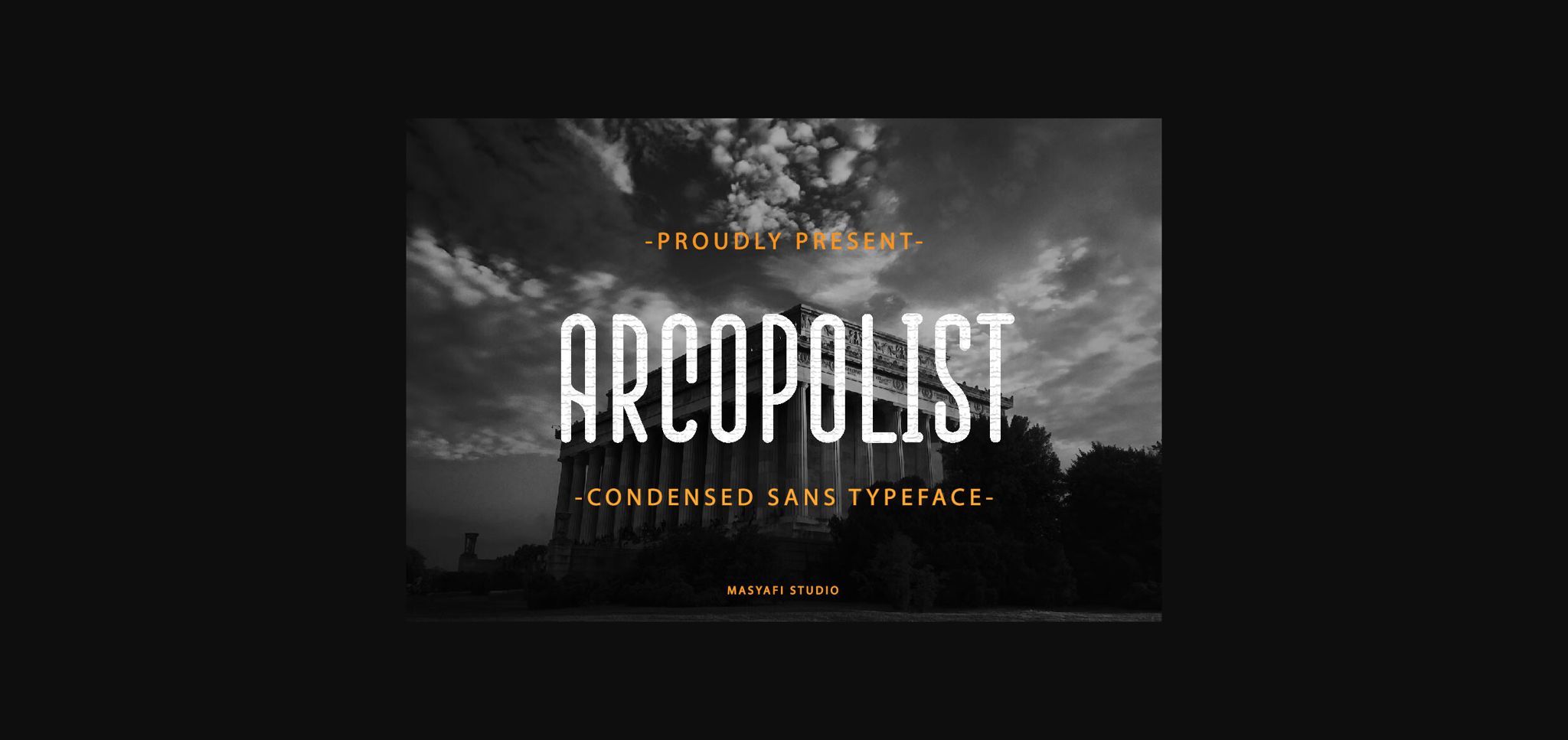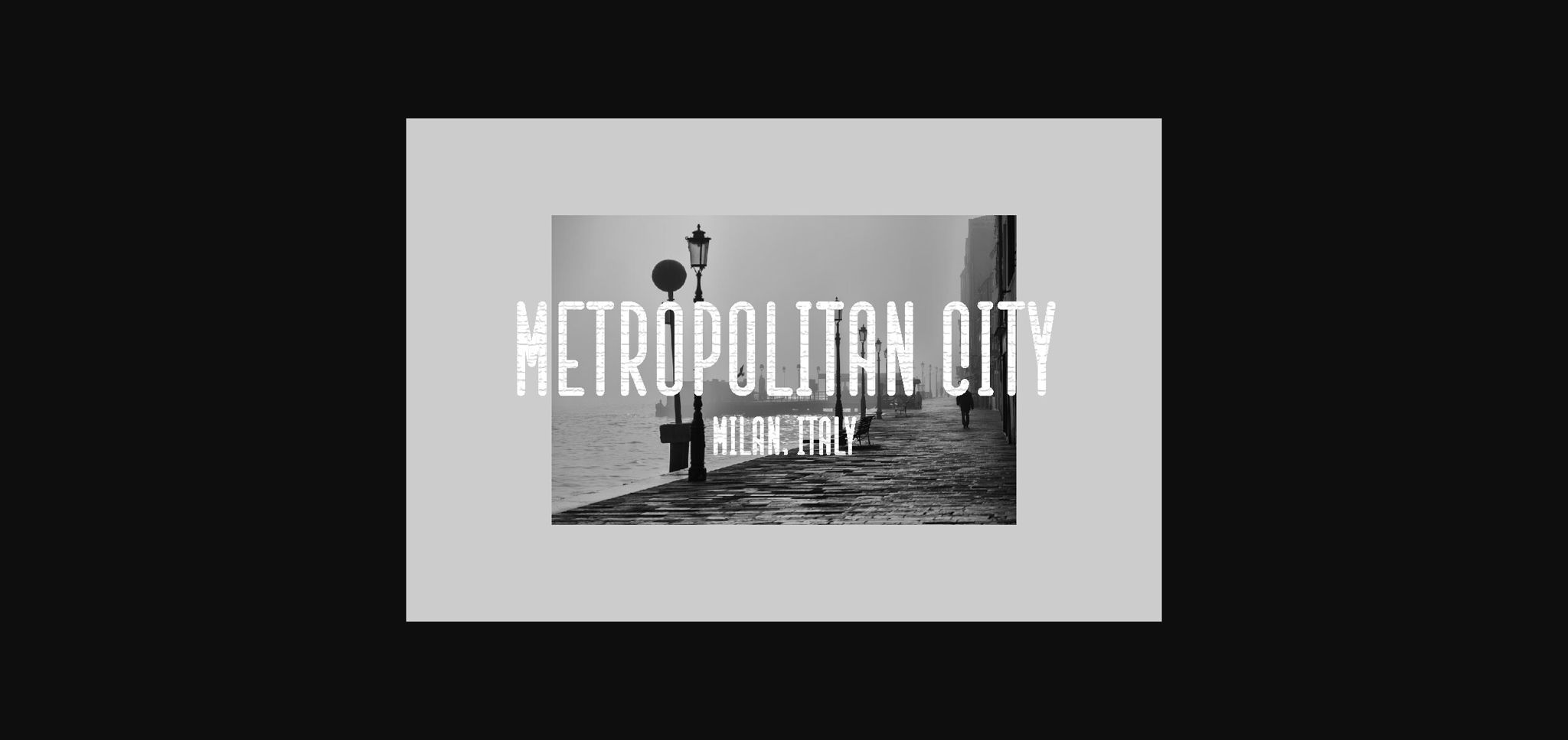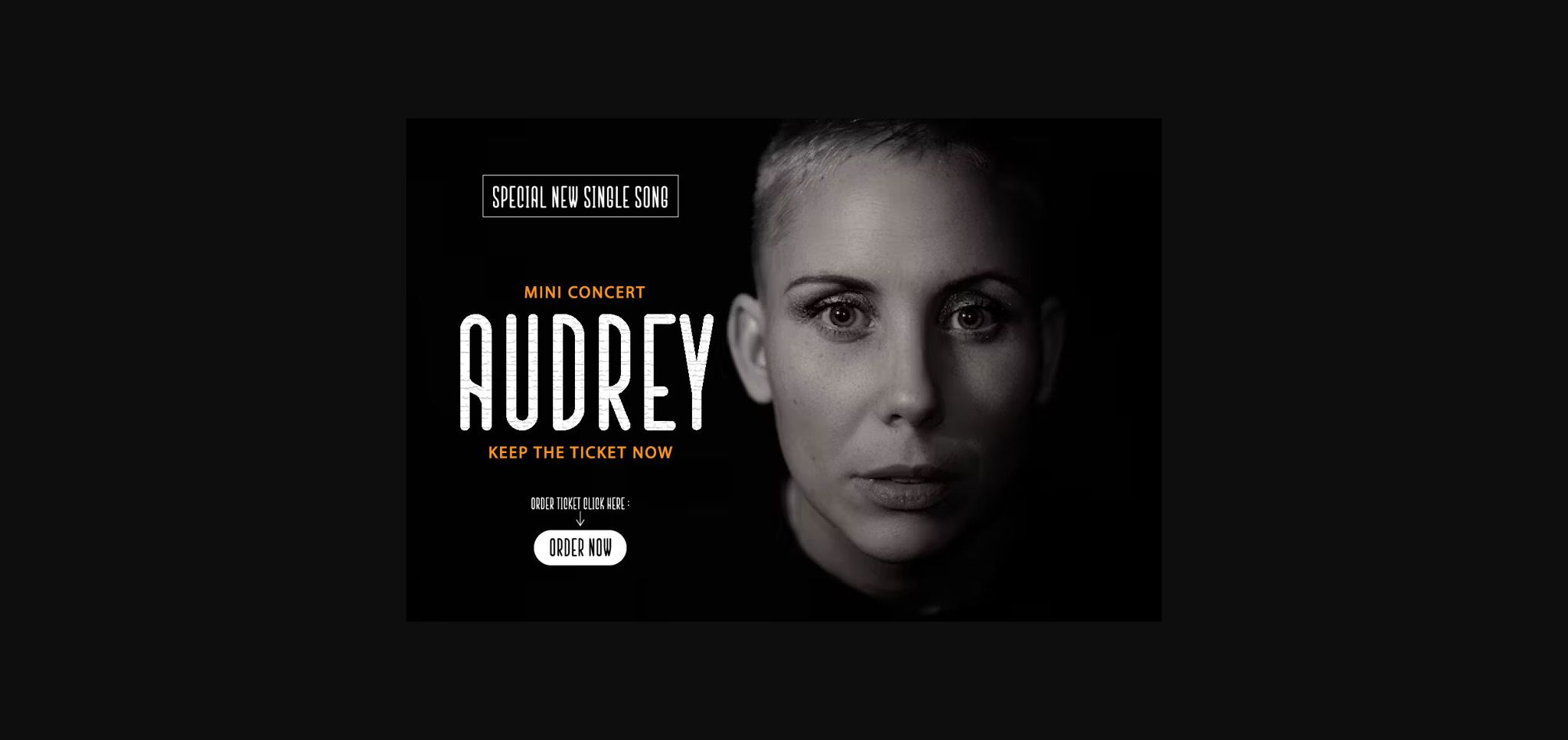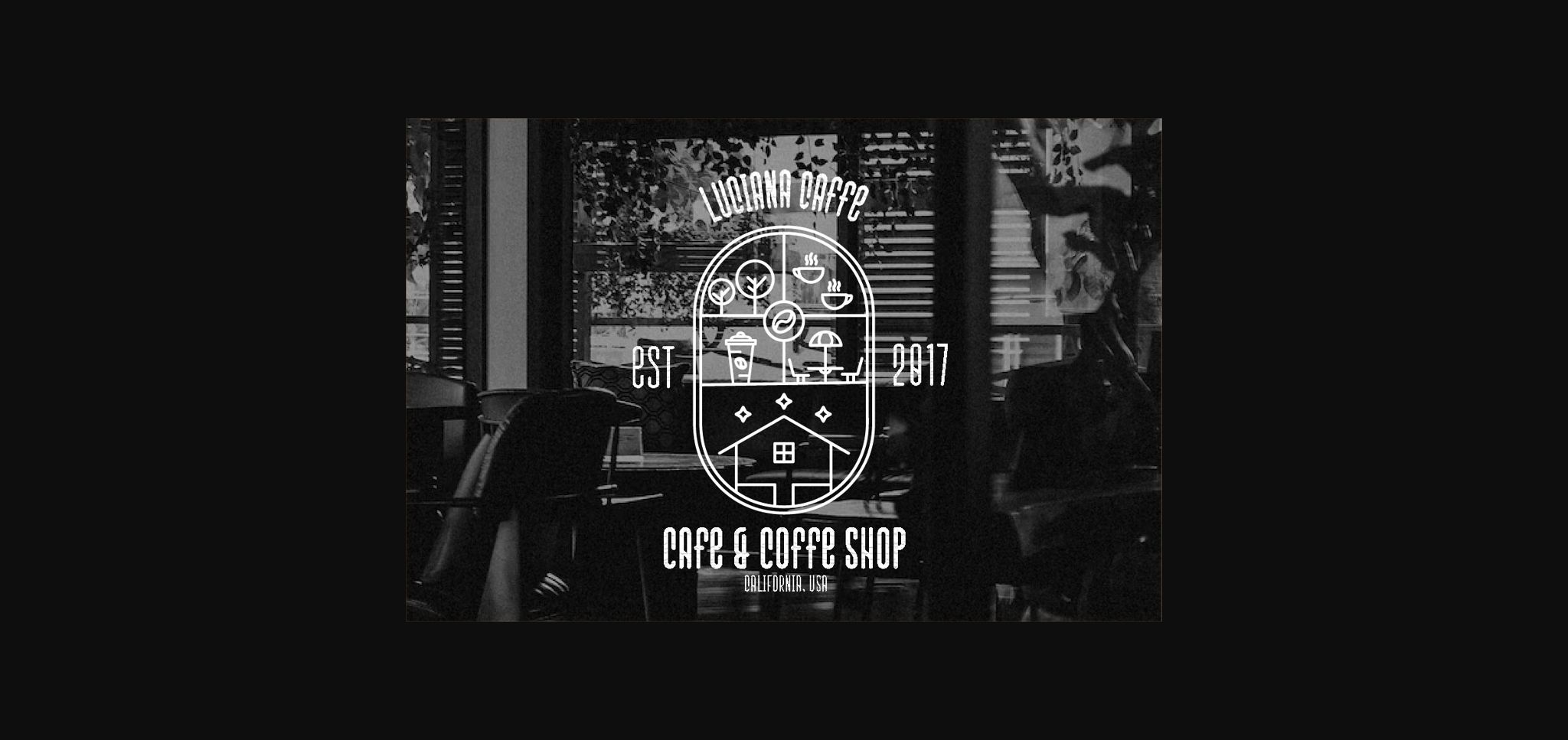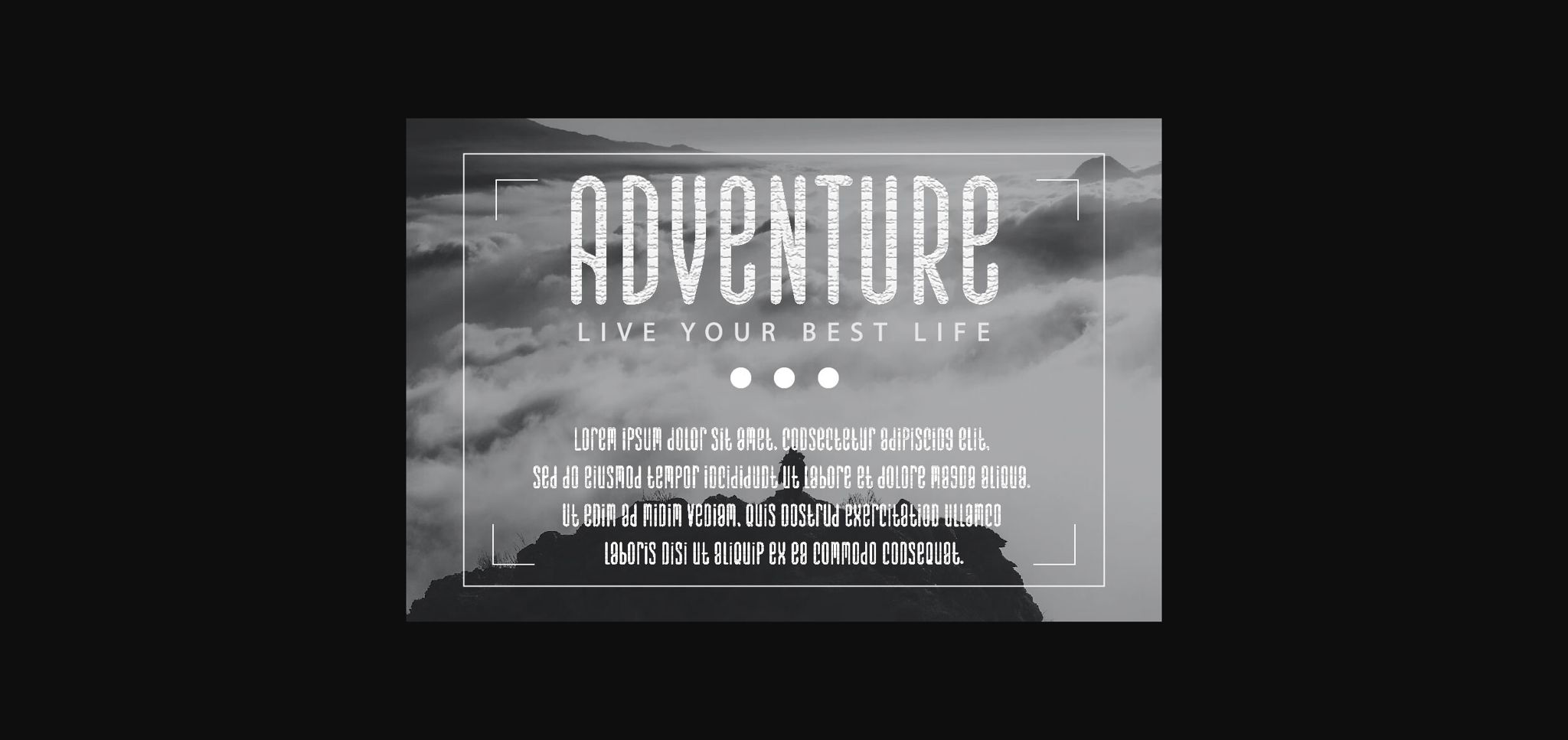
About Arcopolist Font
Introducing Arcopolist – condensed Sans Typeface
Condensed Sans Typeface with a gentle, vintage, and manly style. This font is cool for quotes, headlines, overlays, etc.